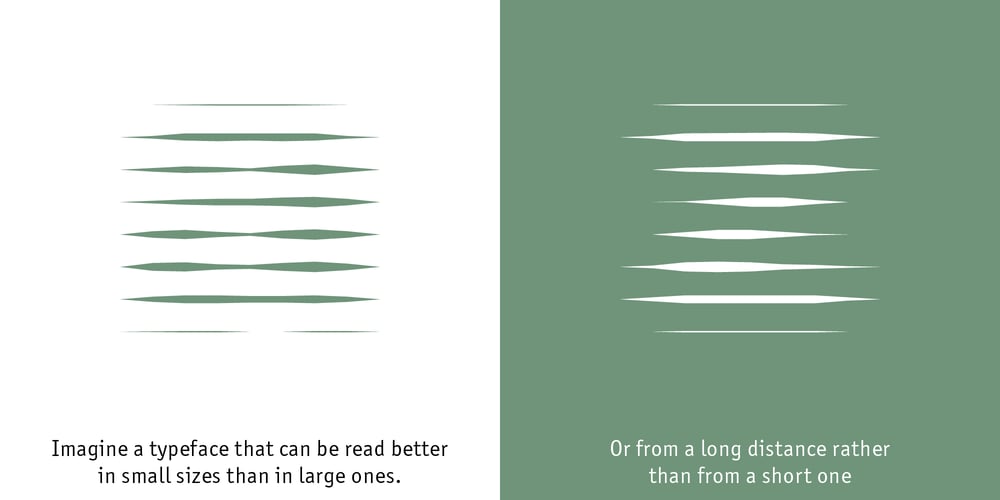
Kontext H
Kontext H font
Kontext H Font Family was designed by Darius Samek and published by Elster Fonts. Kontext H contains 9 styles and family package options. Imagine a font that is easier to read the smaller it is – or the further away the text is. There are already many line screen fonts, I wanted to take it to the extreme and use as few lines as possible, while keeping the grid of the fonts metrics. The result is a typeface that lives up to its name.Each individual line makes no sense on its own; individual letters are only recognisable in the context of all associated lines, individual letters are most likely to be recognised in the context of whole words.Attached to a building wall, text would be readable from a great distance and become increasingly difficult to decipher the closer you get to the building. Placed on the ground or on a large flat roof, text would only be readable from an aeroplane or – depending on the size – in Google Earth.Kontext has old style figures, superscript numerals, case-sensitive questiondown and exclamdown and an alternative ampersand, 390 glyphs at all.Use the same value for font size and line spacing to keep the lines in the grid, or change the line spacing in 10% steps.Change the spacing in 100-unit or 25-percent increments to keep the grid.The »H« in the font name stands for horizontal (lines).The numbers in the font name refer to the brightness of the background and letters themselves, with the first number describing the background and the second the letters. Starting with »00« (white) to »200« (dark)See also my Family Kontext Dot